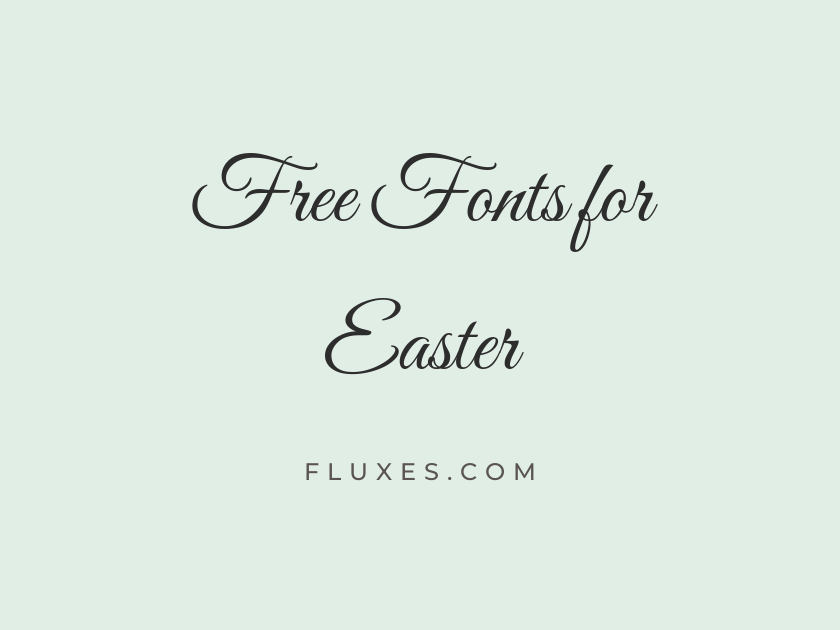
65 Best Free Fonts for Easter
Easter typography lives in a surprisingly wide range: soft pastel scripts for church programs and greeting cards, bouncy playful letters for egg hunt flyers and kids’ parties, and refined serifs for a formal Sunday brunch menu. The good news is that nearly every mood the holiday calls for has a genuinely free option on Google Fonts, no license fees or fine print required. Whether you’re designing an invitation, a bakery label for hot cross buns, or a simple website graphic wishing visitors a happy Easter, there’s a font here that fits.
What follows draws from calligraphic scripts, casual handwriting, rounded display faces, and classic serifs, each chosen because it genuinely suits some corner of Easter design work rather than because it happened to be popular.
1. Great Vibes
Few scripts capture the joy of an Easter proclamation quite like this one; its long, looping ascenders feel like a hand sweeping across the page in celebration. It shines on the cover of a church program or a hand-addressed card, though it needs generous size to keep its delicate strokes legible.
2. Alex Brush
Alex Brush reads like a fountain pen dipped in confidence, all connected curves and warm slant. It pairs beautifully with a clean sans for brunch invitations where the heading needs personality and the fine print needs clarity.
3. Parisienne
There’s a soft, romantic quality to Parisienne that suits pastel color palettes and floral stationery. Keep it to short phrases; at paragraph length its rounded loops start to blur together.
4. Allura
Allura’s thin, elegant strokes feel tailor-made for foil-stamped invitations or the opening line of a spring event card. It’s understated rather than showy, a script that whispers instead of announces.
5. Pinyon Script
This one leans formal, closer to engraved wedding stationery than a craft-table banner, which makes it a smart choice for an Easter vigil program or a dressier brunch menu.
6. Tangerine
Tangerine is delicate almost to a fault: gorgeous at large display sizes, nearly invisible if shrunk down for body copy. Reserve it for a single greeting line set in generous type.
7. Italianno
Italianno brings old-world calligraphy energy, all dramatic swashes and elongated tails, well suited to a card that wants to feel hand-inked by a calligrapher rather than typed.
8. Kaushan Script
Kaushan Script has more bounce and less formality than most calligraphic scripts, giving it a friendly, brush-pen feel that works nicely on an egg hunt flyer aimed at families rather than a solemn program.
9. Grand Hotel
Grand Hotel carries a vintage postcard charm, a little wobbly and hand-inked, that suits nostalgic Easter greetings built around a soft, retro palette.
10. Berkshire Swash
Built from swashy capitals rather than a fully joined hand, Berkshire Swash reads best as a short monogram-style header, a brunch date or a single word set large.
11. Pattaya
Pattaya’s condensed, upright strokes give it a breezy feel while still reading clearly in a narrow space, useful when a layout leaves little room for a script.
12. Sacramento
Sacramento is light on its feet, casual and a touch retro, the kind of script you’d expect on a hand-lettered basket tag or gift label.
13. Dancing Script
Dancing Script might be the most reliable all-purpose script on Google Fonts, and Easter projects benefit from that reliability. Its rounded, bouncing baseline feels cheerful rather than formal, equally at home on an egg hunt invitation, a brunch menu, or a nursery print for a spring baby shower.
It holds up across a wide range of sizes, a rarer trait among connected scripts, which makes it a safe pick for anyone nervous about legibility.
14. Satisfy
Satisfy has a loose, marker-drawn quality suited to a casual potluck sign-up sheet or a chalkboard-style menu more than a formal invitation.
15. Yellowtail
Its thick, confident strokes give Yellowtail presence even at smaller sizes, a useful trait for a small logo or a badge on packaging for homemade treats.
16. Courgette
Courgette sits between handwriting and script, informal and warm, a good match for a friendly recipe card or a family newsletter header.
For kids’ parties and egg hunts, rounded display fonts and handwriting styles carry the right energy. Test them at the actual print size before finalizing a flyer, since some playful faces lose definition when shrunk.
Whatever the project, from a simple website banner to a printed invitation suite, there’s enough range across these fonts to match Easter’s mix of celebration, tradition, and springtime cheer.